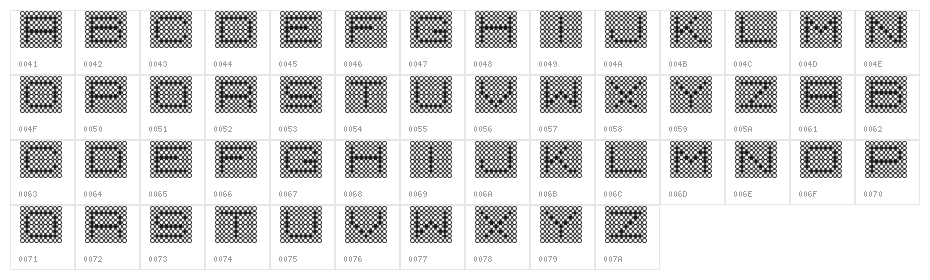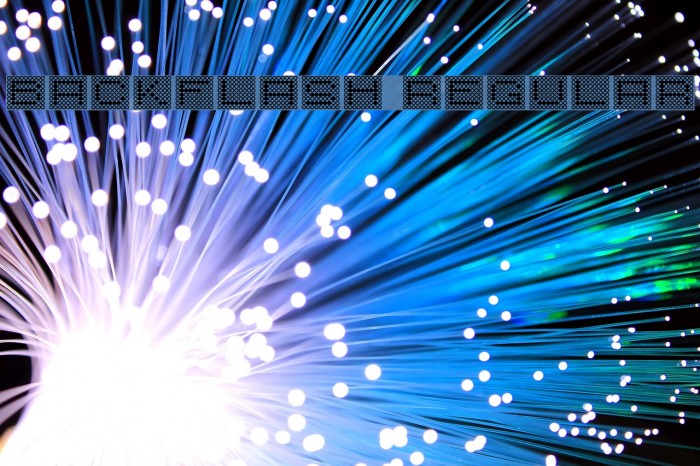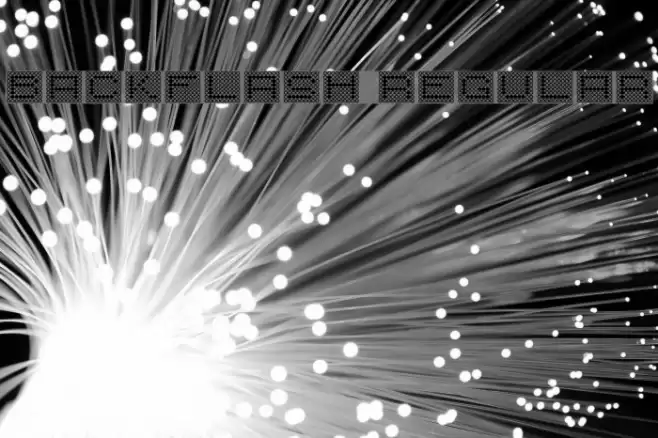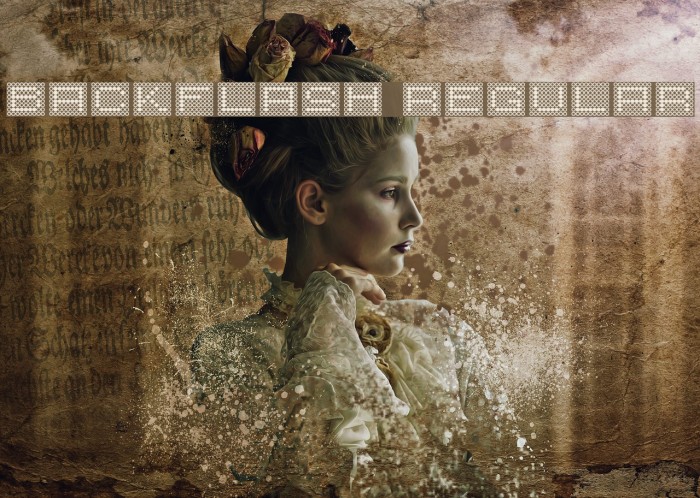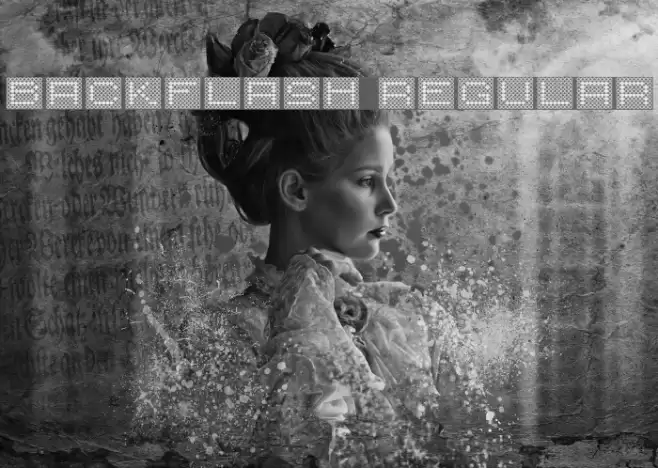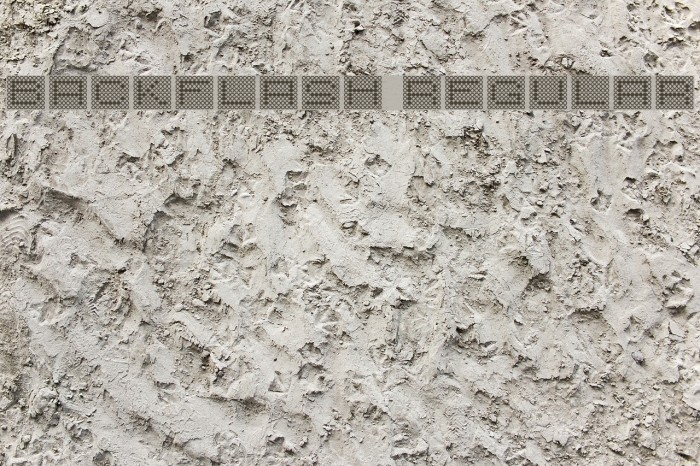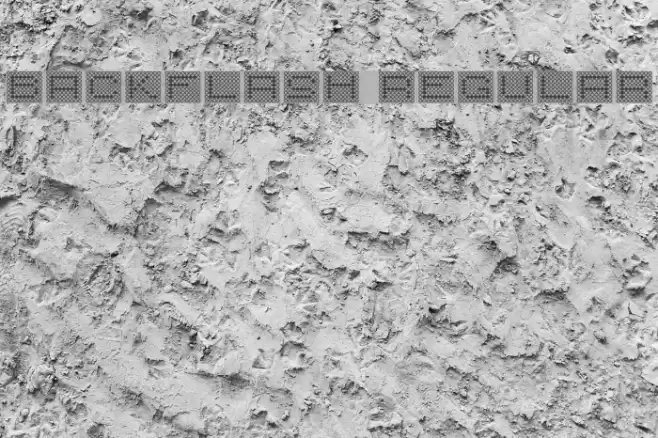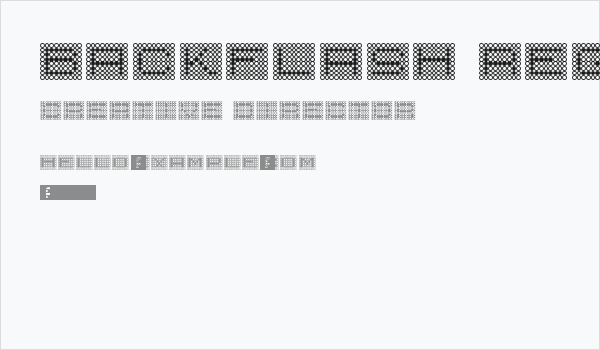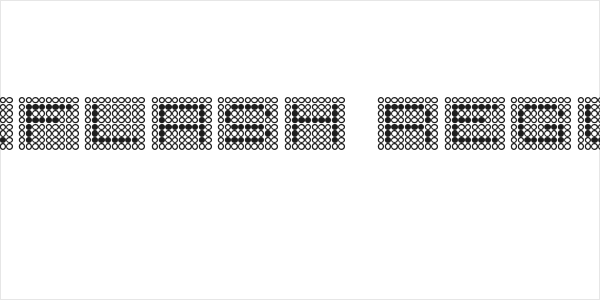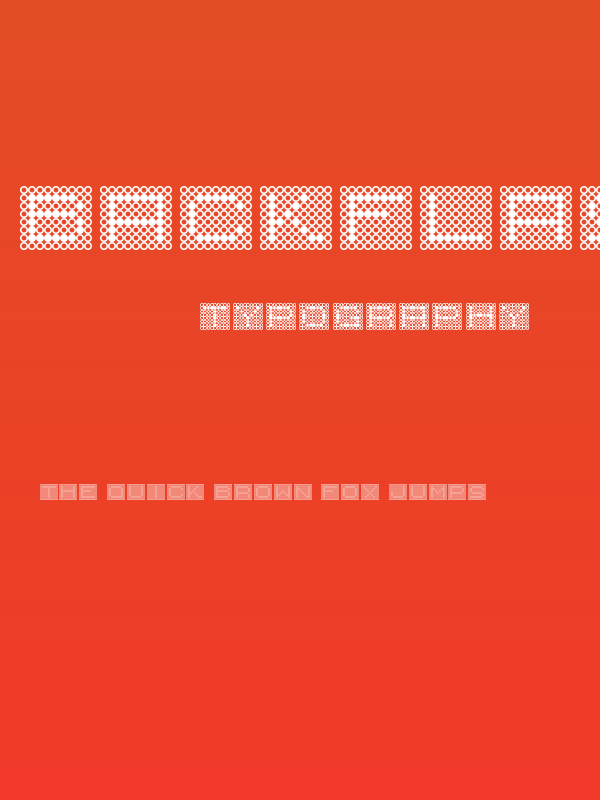
Backflash Regular Font
Backflash Regular Description
This font features a unique, decorative style with a bold, grid-like pattern filling each character. The letters are enclosed in a square outline, giving them a distinct, modern appearance. The uppercase and lowercase letters maintain a consistent design, with the grid pattern providing a textured look that stands out. The numbers and special characters follow the same design principles, ensuring uniformity across all glyphs. This font's geometric and structured style makes it ideal for projects that require a strong visual impact.